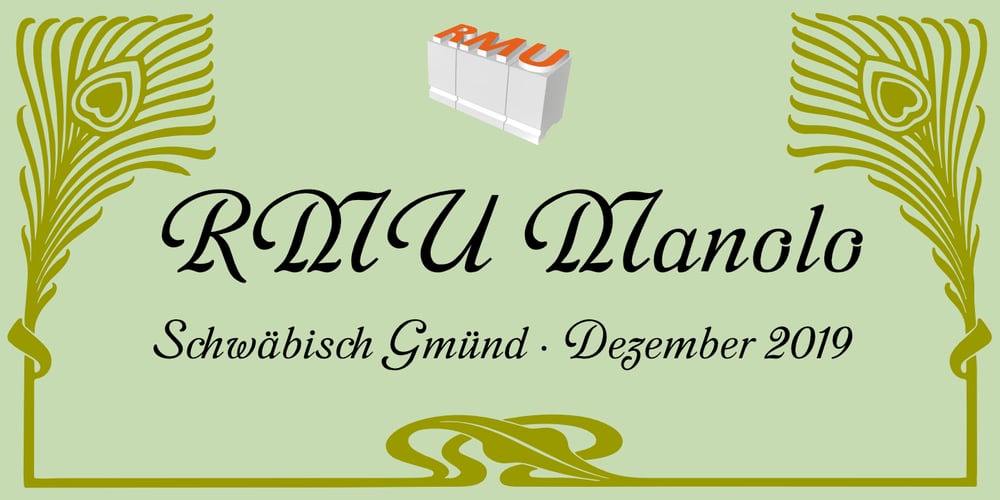
RMU Manolo Font Family was designed by Ralph M. Unger and published by RMU. RMU Manolo contains 1 styles and family package options. Manolo was a Ludwig & Mayer in-house design from the beginning of the 20th century. Though more formal than many others, the design keeps its Art Nouveau air. This beautiful font was completely redrawn and redesigned with giving the numerals more style. Two stippled border elements were added which you can reach by typing [alt] + P and [alt] + p. Like most fonts of this era, RMU Manolo comes with a long s too. RMU Manolo encompasses most European languages, Central and West, plus Turkish.